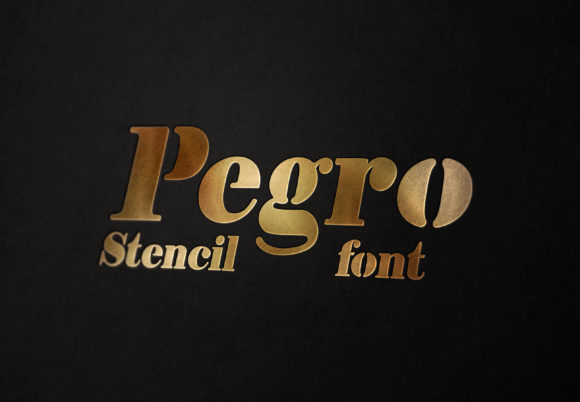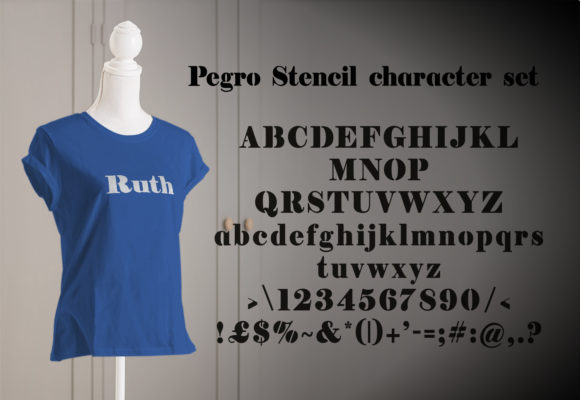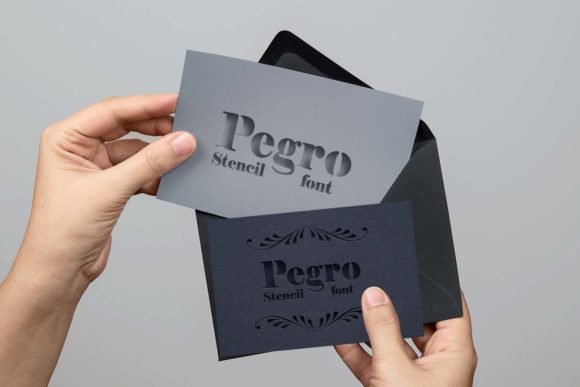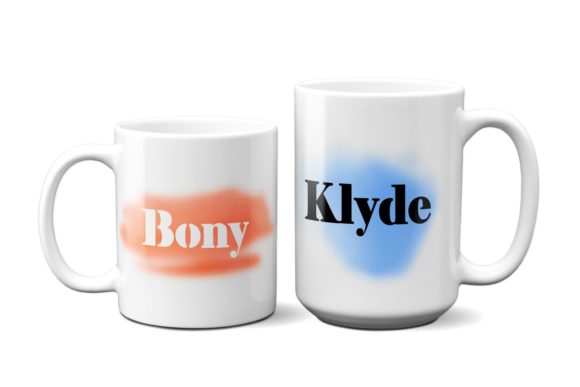
Pegro Stencil Font: Bold Serif Typography for Unique Logo Design
About the Pegro Stencil Font
Step up your design game with Pegro Stencil Font, a font that exudes confidence and style. Pegro Stencil is a unique and bold stencil serif font. It will elevate a wide range of design projects to the highest level, be it branding, headings, wedding designs, invitations, signatures, logos, labels, and much more!
Pegro Stencil’s strong, uppercase forms make it ideal for headlines, short impactful statements, and branding applications needing a bold, retro feel. It works exceptionally well in posters, logos, and packaging design where its distinctive stencil quality adds a vintage yet modern touch. However, its limited character set and bold weight make it unsuitable for body text or UI elements requiring high readability.
Consider pairing Pegro Stencil with a clean sans-serif like Open Sans for a contemporary contrast, or a more refined serif like Playfair Display for a classic, elegant feel. A playful script font could also work well for secondary text elements, adding a layer of personality without overwhelming Pegro Stencil’s strong presence.
The font’s overall personality is bold and confident, with a hint of vintage appeal. It’s best suited for brands projecting strength, authenticity, or a retro-inspired aesthetic. Avoid using it in contexts requiring subtlety or a delicate, feminine feel.